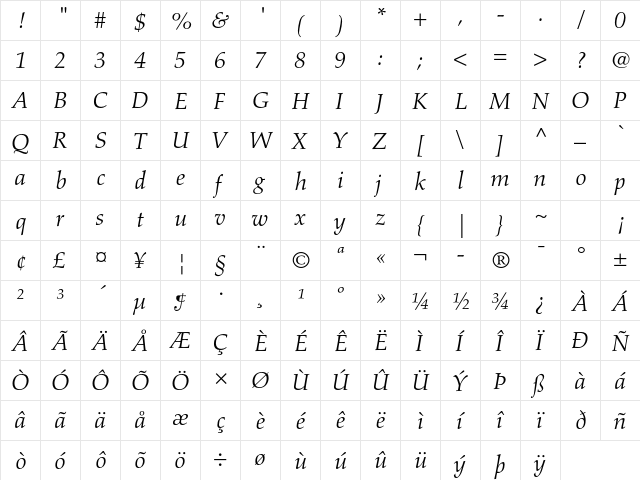
Aldus LT Std Italic
| Designer | Hermann Zapf |
Design Context for Aldus LT Std Typeface
Aldus LT Std offers clean, dependable letterforms without strong stylistic allegiance, making it a practical choice for designers who need flexibility. The slanted form adds forward momentum and visual energy. The delicate stroke weight brings airiness and refinement to layouts.
Pro Tip: Use Aldus LT Std for emphasis, pull quotes, and subheadings where its slanted energy can add rhythm to the layout.